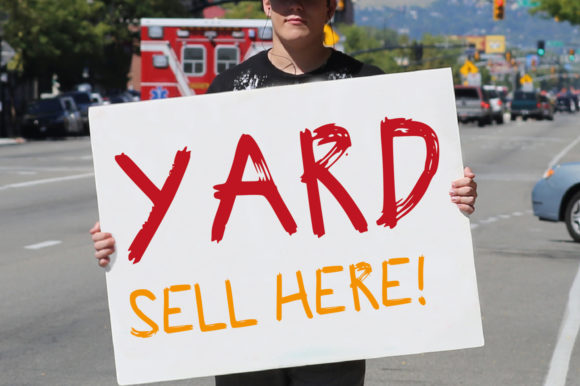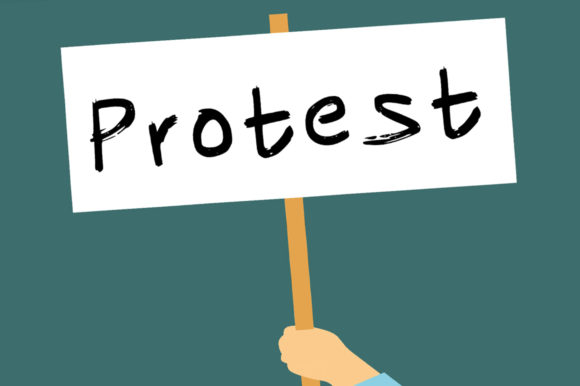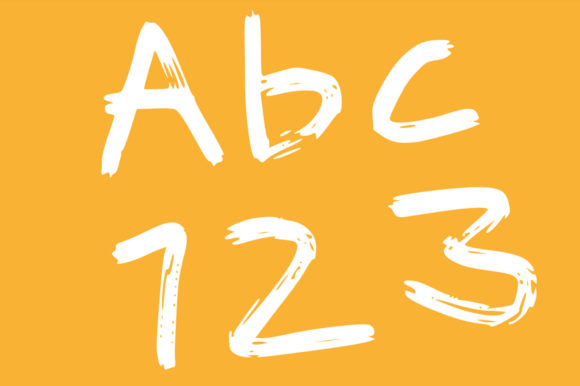
Yard Sell Font
About Yard Sell Font
Throw away your paint brush and paint as “yard sell” is here for all your handwritten signage needs. For the bargain hunter to the thrift enthusiast, this font will see your well through all the rumerging and picking. Upper, lower, numbers and some symbols showcases a rough, quick style only found on yard sale signs.